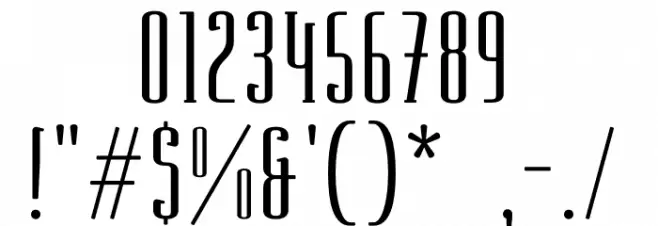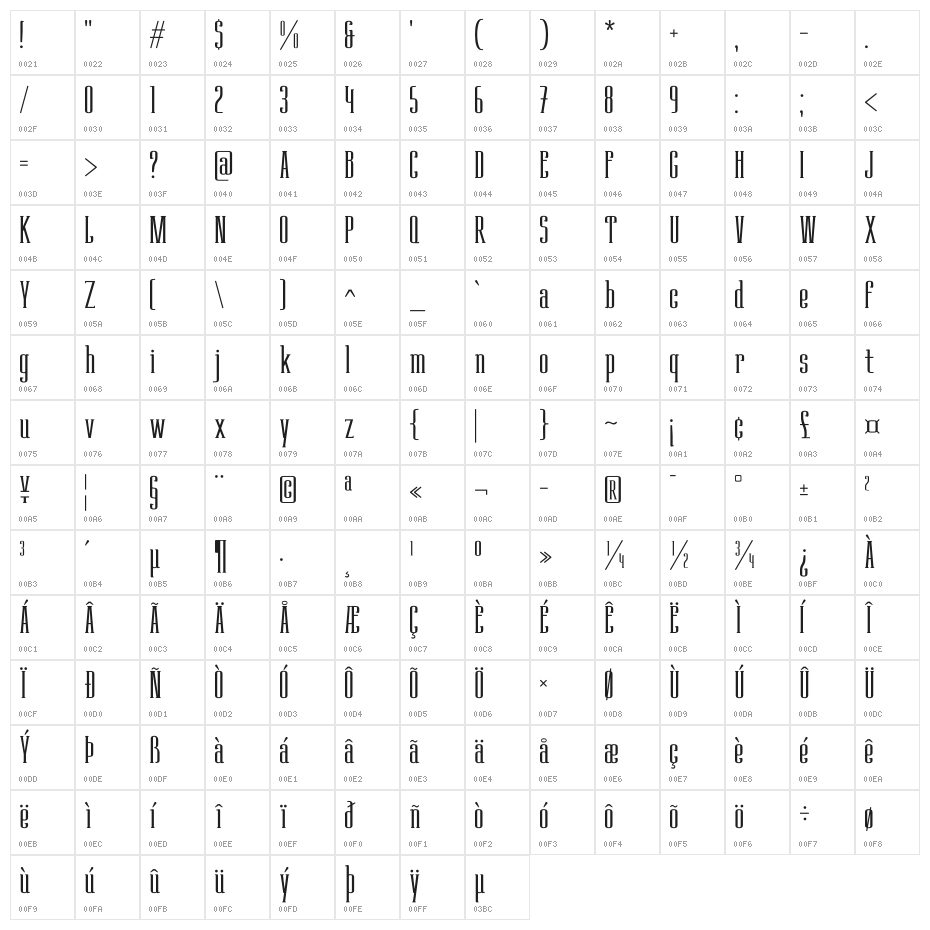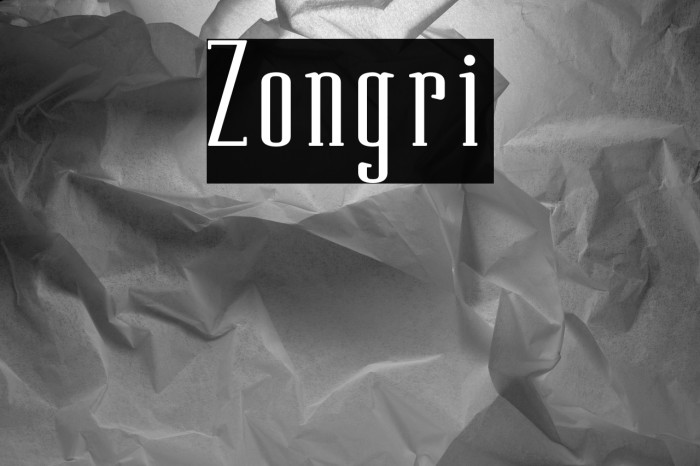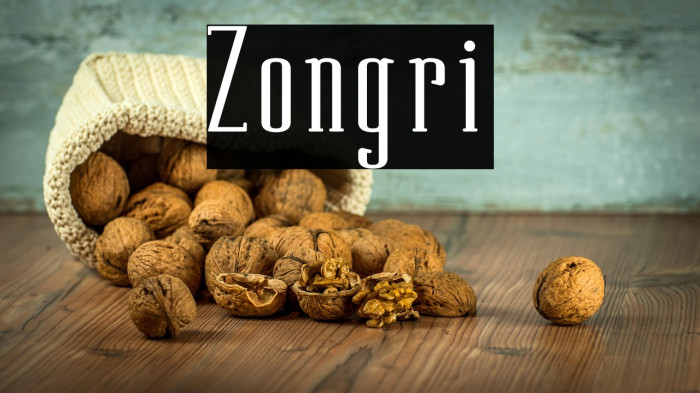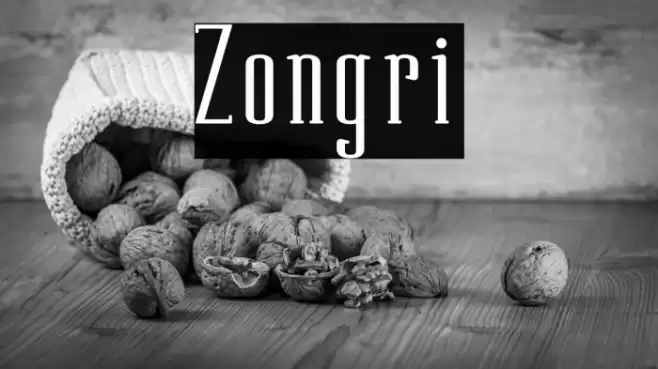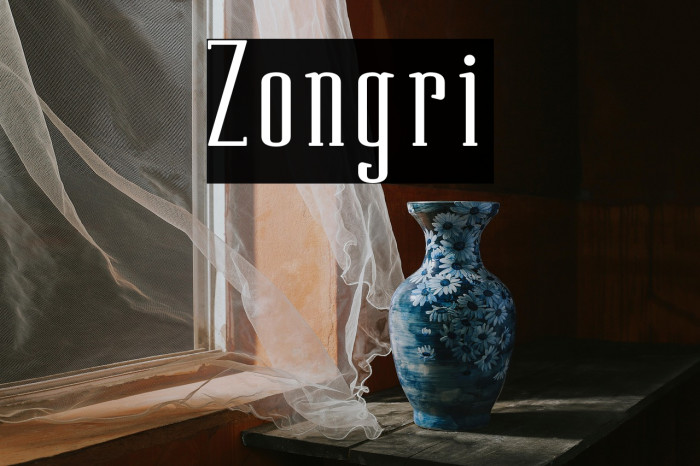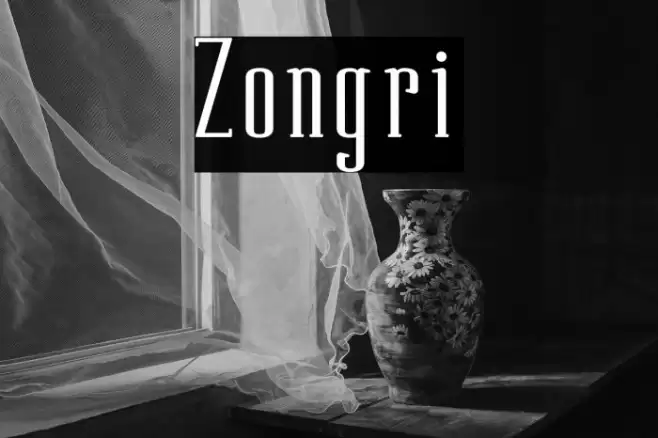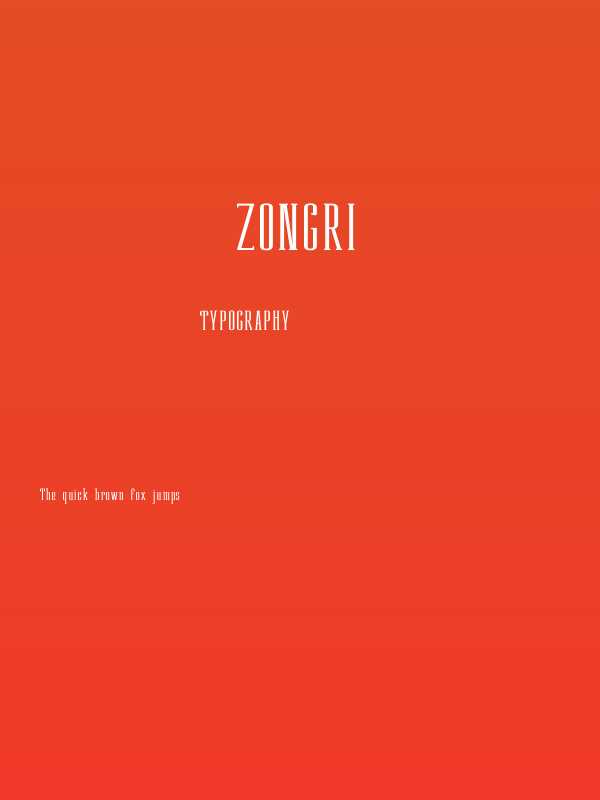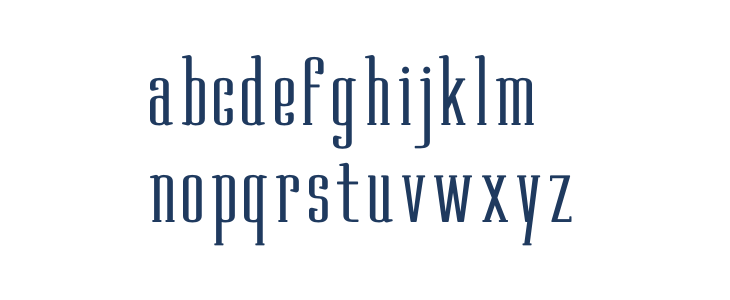
Zongri Font
Zongri Description
This font features a tall, narrow design with a distinct vintage flair. The uppercase letters are elongated and have a slight serif, giving them a classic yet modern appearance. The lowercase letters maintain the same narrow structure, ensuring consistency throughout the typeface. Numbers are similarly styled, with a uniform height that aligns with the uppercase characters. Special characters are included, matching the overall aesthetic with a blend of sharp and rounded edges. The font's design is both elegant and bold, making it suitable for a variety of creative applications.
| Proposed Projects | Ideal for posters, branding, and editorial design where a classic yet modern look is desired. |